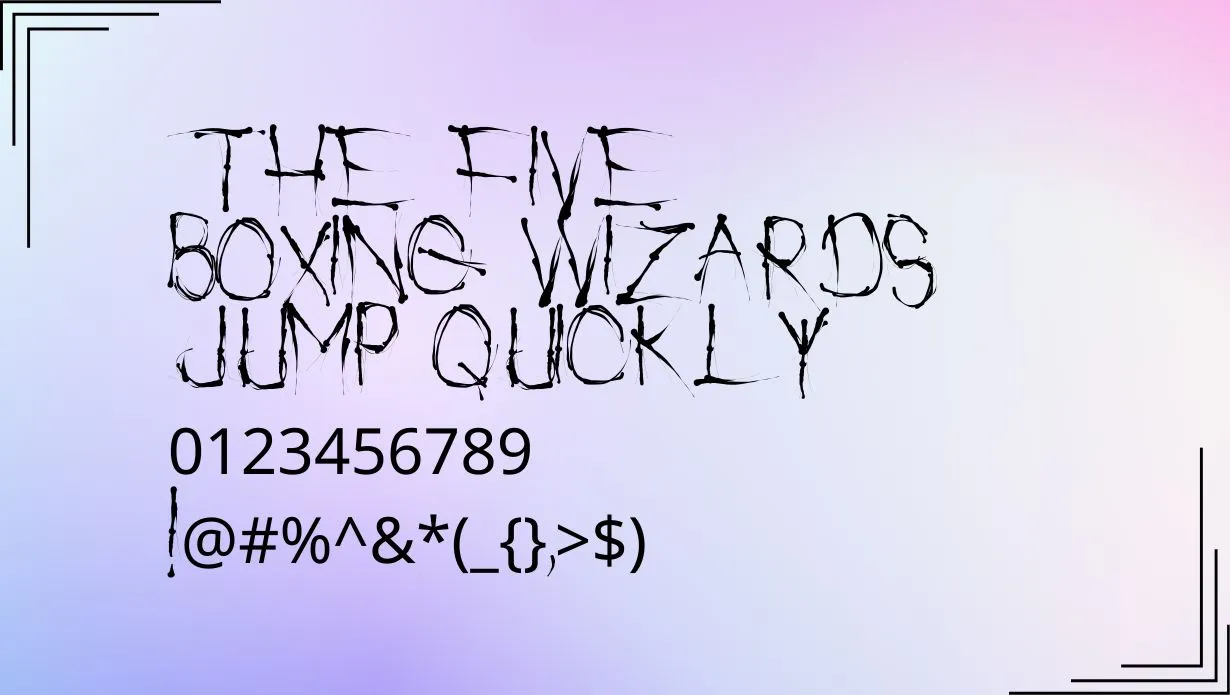
This horror and stylish font is designed by an American Typeface and graphic designer Chris Ville for the foundry Font Monger in 2018. He is very popular with typeface designers. He created many stylish and artistic typefaces.
This font is a horror yet stylish font and is an artistic font. This font belongs to the fancy font category. The design of this font is based on the idea that death is a part of life and should be treated as much, by the designer.
It has a unique set of characters including capital and small letters, numerals, symbols, and special characters. To achieve an exclusive and eye-catching design, it is essential to pair this font with the millenia font.
This font has also a complete set of glyphs. The font also contains various death-themed glyphs such as skulls, crossbones, and coffin.
This font is perfect for creating spooky, horror, and macabre content. Most horror movie title designers use this font to make horror movie titles. They also use this font to make posters of horror movies, horror games, etc.
This font can be used in making horror or life-and-death-related content logos, making horror presentations, and shop names. This font is also used frequently in fashion designing, dress prints, horror T-shirt print designs, etc.
The font can be used in horror magazine covers, banners, flyers, labels, and many horror and spooky graphic design projects.
Watch People Die Font Family Appearance
| Name | Watch People Die Font |
| Designer | Chris Ville |
| Style | Fancy |
What is the Watch People Die font?
This is a scary and death font designed by Chris Ville with a wide range of glyphs and characters that can be used in any kind of Horror project design. This font also contains various death-themed characters like skulls, crossbones, and a coffin.